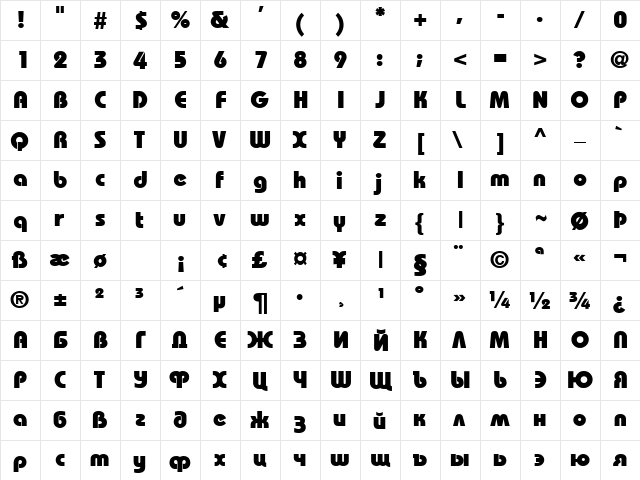
Bahamas Heavy Regular
Design Context for Bahamas Heavy Typeface
Bahamas Heavy offers clean, dependable letterforms without strong stylistic allegiance, making it a practical choice for designers who need flexibility.